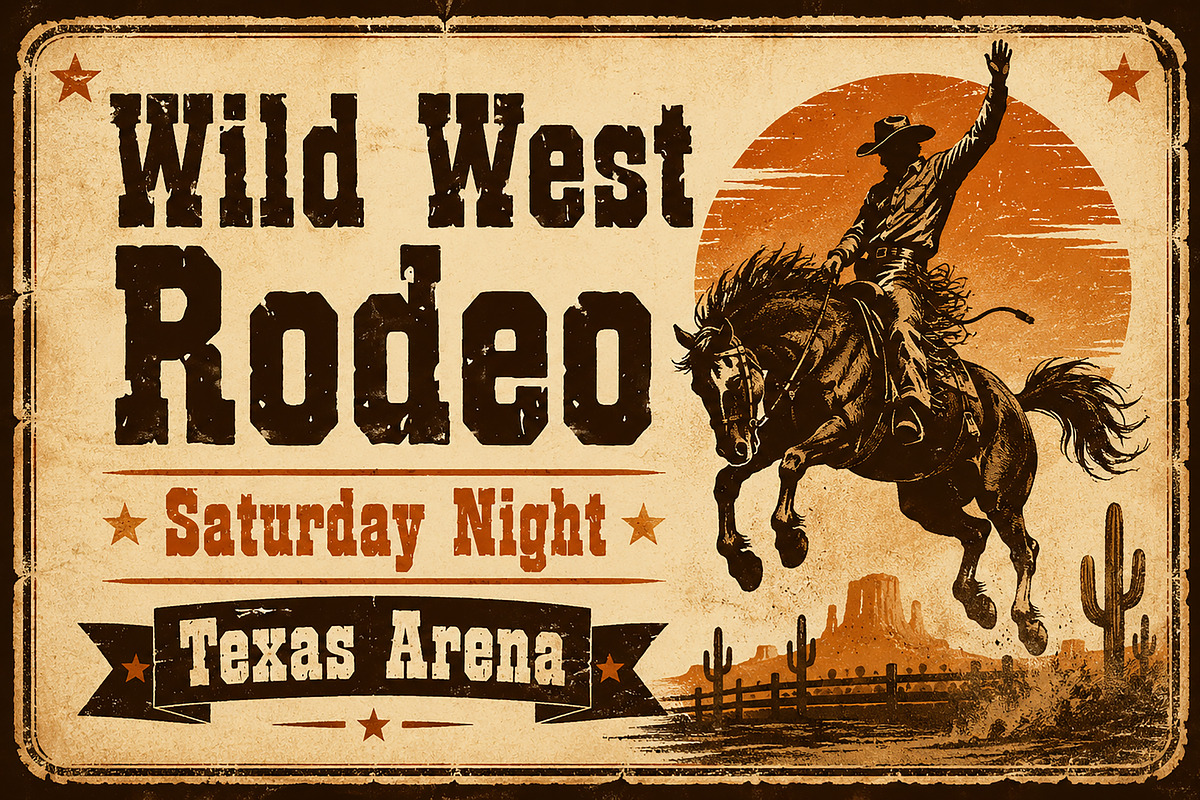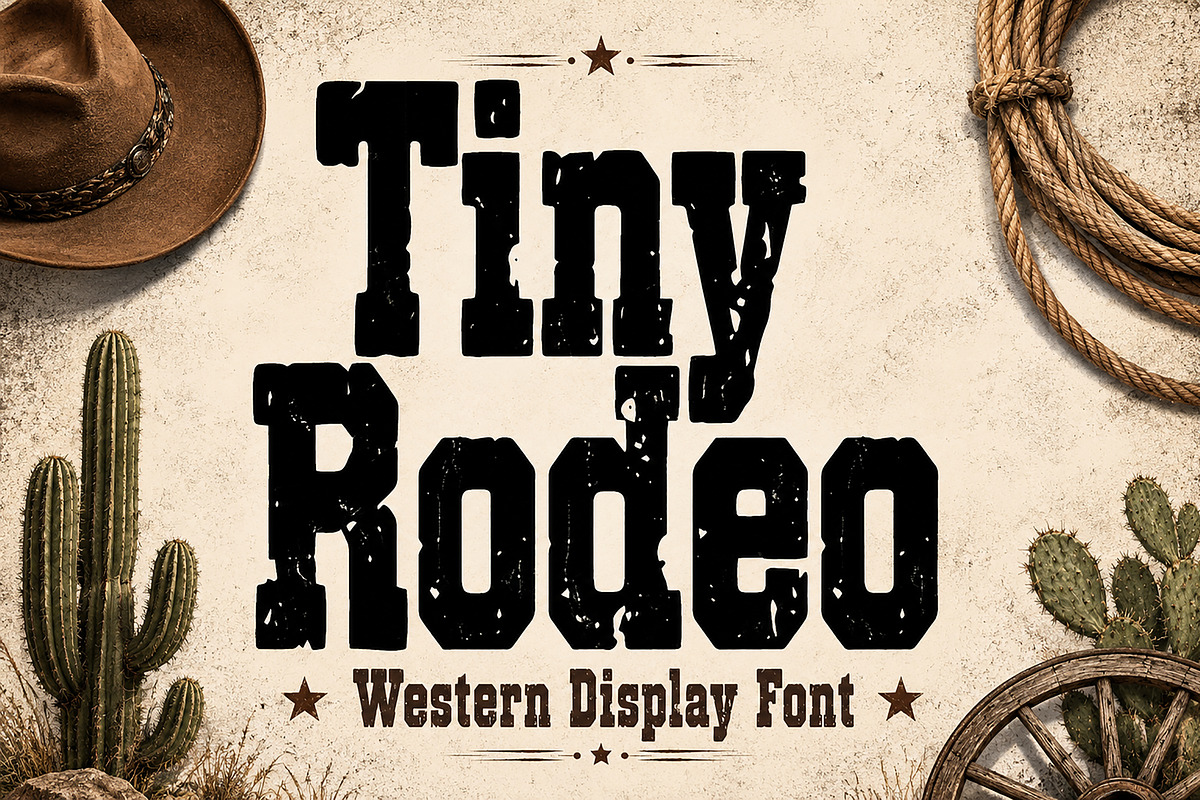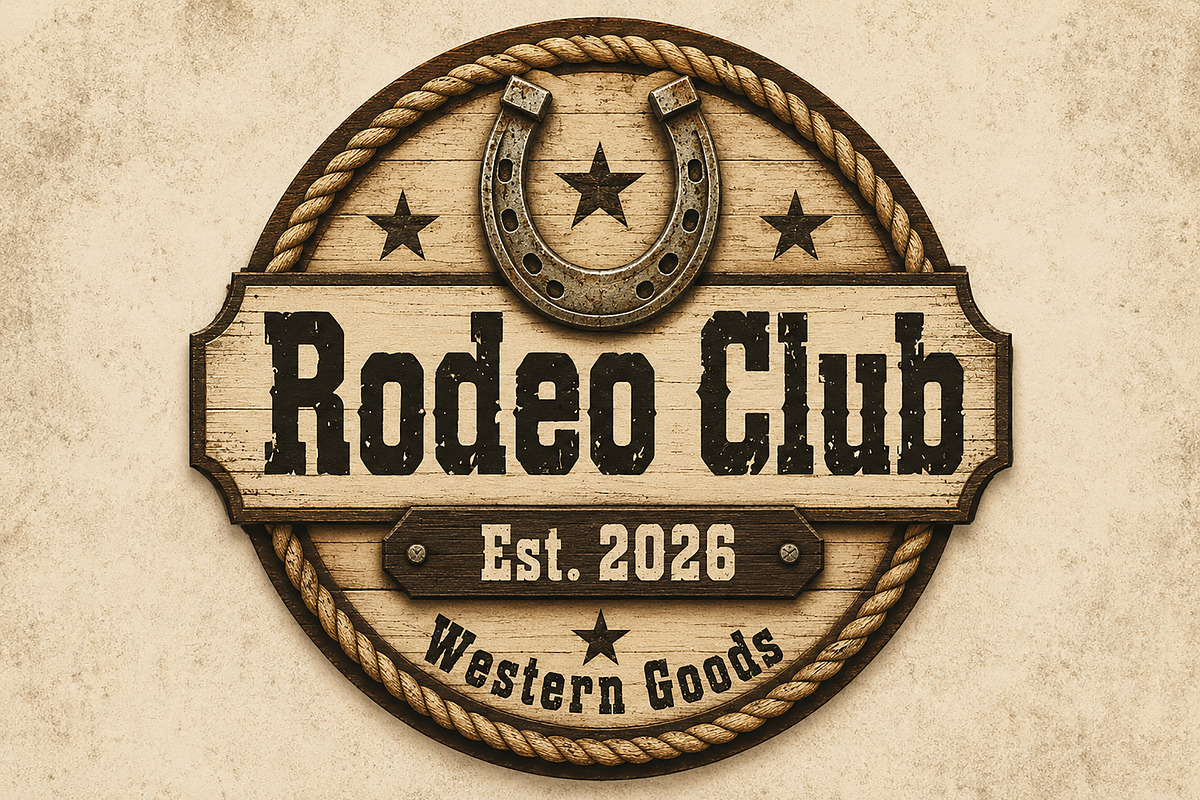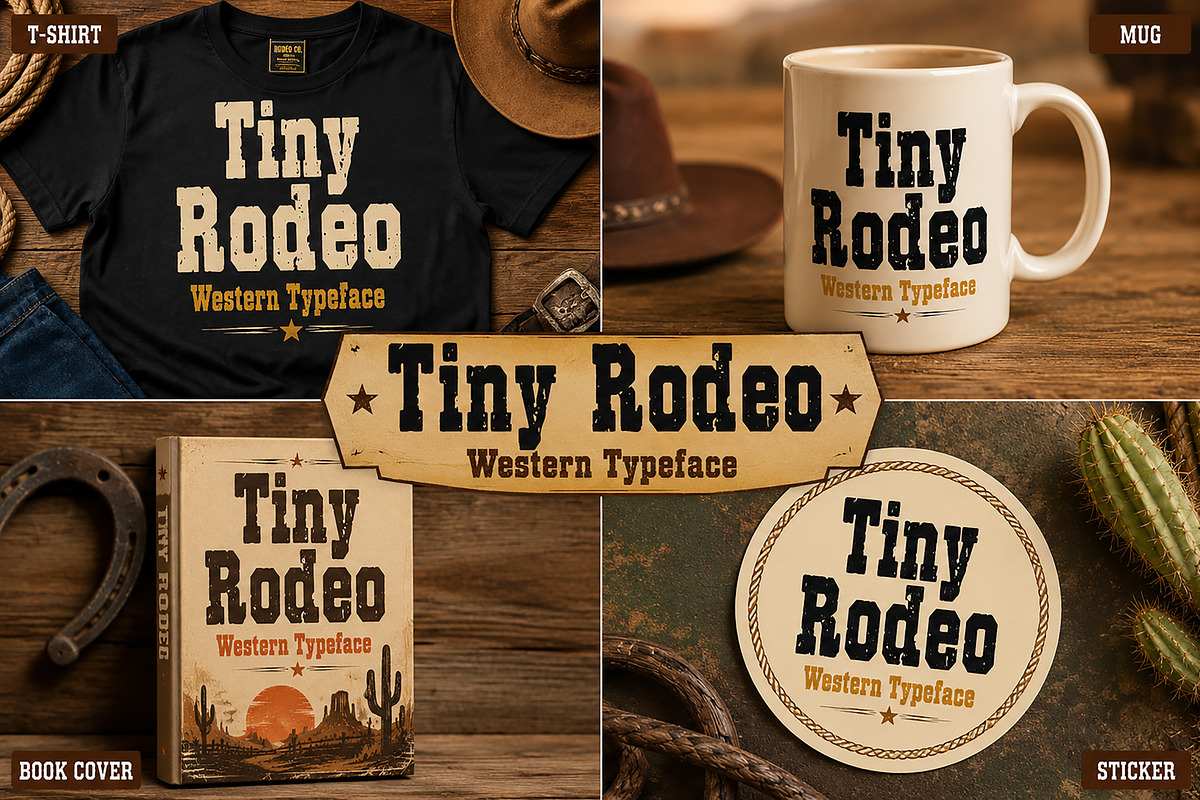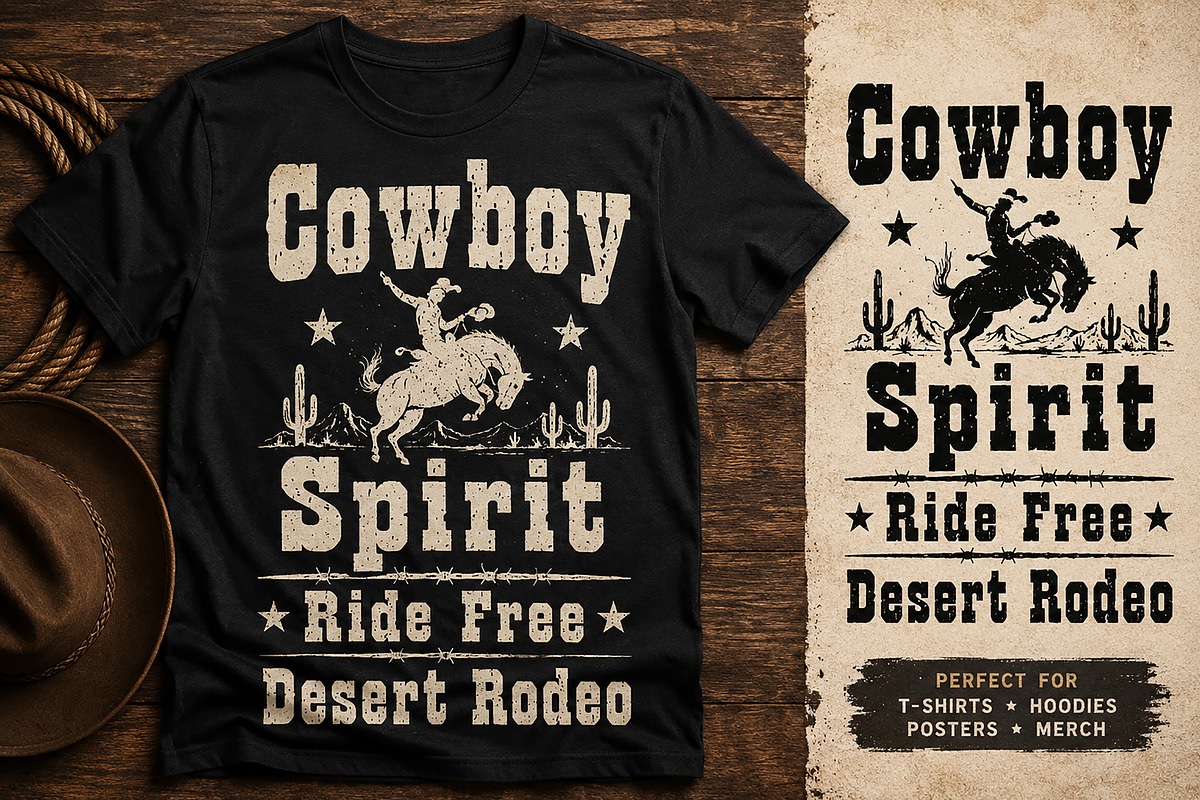
Tiny Rodeo
Tiny Rodeo – Western Display Font
Tiny Rodeo is a bold western display font inspired by vintage rodeo posters, cowboy culture, saloon signage, and rustic Americana design. Featuring strong slab-serif letterforms with a distressed rough texture, this typeface delivers an authentic wild west personality perfect for eye-catching branding and retro-inspired projects.
Whether you’re creating logos, apparel graphics, posters, packaging, stickers, or social media designs, Tiny Rodeo adds a rugged handcrafted feel that instantly stands out. Ideal for western themes, country branding, rodeo events, desert-inspired graphics, and print-on-demand merchandise.
Western & Cowboy Branding
Vintage Logos & Badges
Rodeo Posters & Flyers
T-shirt & Apparel Design
Saloon Signage
Packaging & Labels
Stickers & Merchandise
Rustic Social Media Graphics
Print-on-Demand Products
Uppercase Characters
Distressed Vintage Texture
Bold Western Style
Great for Branding & Merchandise